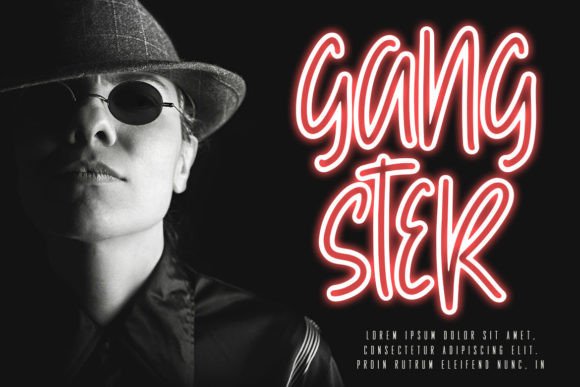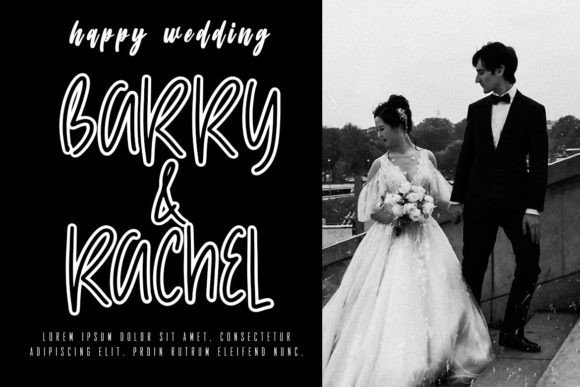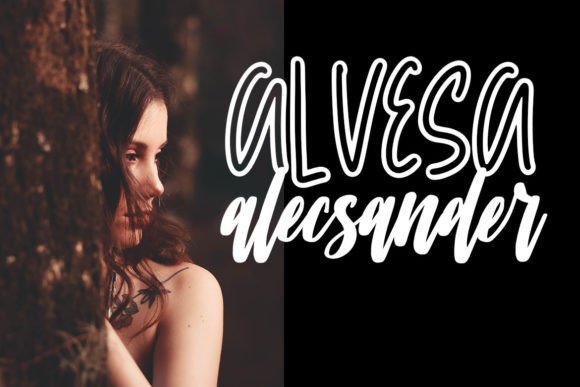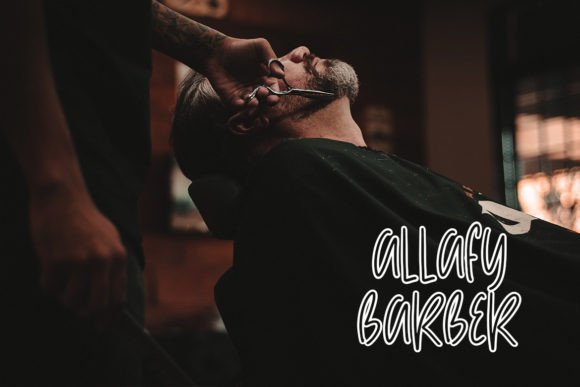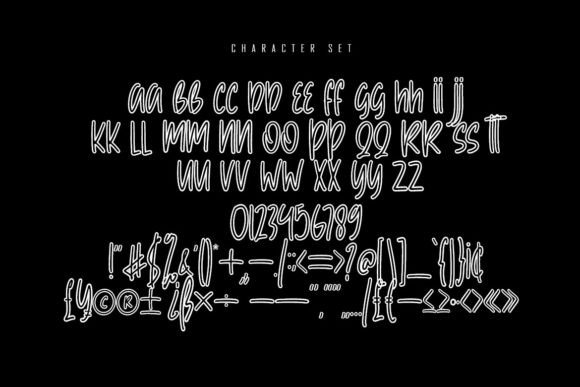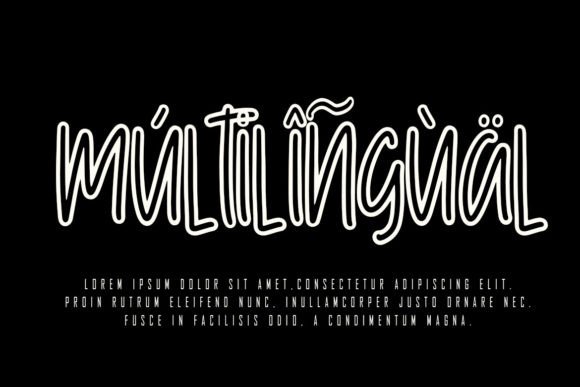
Introducing Breaky Font: The Cool and Unique Handwritten Display Font
Are you tired of using the same old fonts in your designs? Do you want to add a personal touch to your projects? Look no further than Breaky Font, a cool and unique handwritten display font that’s perfect for designers and crafters alike. In this article, we’ll take a closer look at Breaky Font, its features, and how you can use it to elevate your designs.
What is Breaky Font?
Breaky Font is a handwritten display font that’s designed to add a touch of personality to your designs. It’s a unique and cool font that’s perfect for creating eye-catching headlines, titles, and captions. With its irregular strokes and natural look, Breaky Font is sure to make your designs stand out from the crowd.
Features of Breaky Font
So, what makes Breaky Font so special? Here are some of its key features:
- Handwritten look: Breaky Font has a natural, handwritten look that’s perfect for creating personalized designs.
- Unique strokes: The font features irregular strokes that give it a distinctive look.
- Display font: Breaky Font is designed to be used as a display font, making it perfect for headlines, titles, and captions.
- Versatile: The font looks great on a variety of designs, from digital graphics to print materials.
How to Use Breaky Font in Your Designs
Breaky Font is a versatile font that can be used in a variety of designs. Here are some ideas to get you started:
- Social media graphics: Use Breaky Font to create eye-catching social media graphics that showcase your brand’s personality.
- Logos and branding: Add a personal touch to your logos and branding with Breaky Font.
- Invitations and cards: Use Breaky Font to create unique and personalized invitations and cards.
- Digital art: Breaky Font is perfect for digital art, including illustrations, paintings, and more.
Tips for Using Breaky Font Effectively
Here are some tips for using Breaky Font effectively in your designs:
- Use it sparingly: Breaky Font is a display font, so use it sparingly to create emphasis and add personality to your designs.
- Pair it with other fonts: Breaky Font looks great when paired with other fonts. Try pairing it with a sans-serif font for a modern look.
- Experiment with colors: Breaky Font looks great in a variety of colors. Experiment with different colors to find the one that works best for your design.
Breaky Font is a cool and unique handwritten display font that’s perfect for designers and crafters alike. With its irregular strokes and natural look, Breaky Font is sure to add a personal touch to your designs. Whether you’re creating social media graphics, logos, or digital art, Breaky Font is a great choice. So why not give it a try and see how it can elevate your designs?
- What is Breaky Font? Breaky Font is a handwritten display font that’s designed to add a touch of personality to your designs.